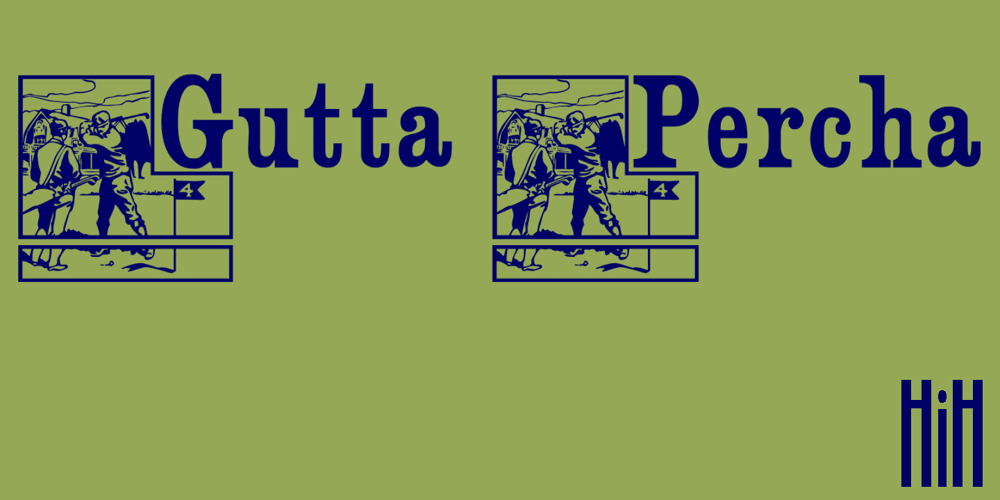
Gutta Percha Font Family was designed by published by HiH. Gutta Percha contains 1 styles and family package options. Gutta Percha is a font for golfers. It takers its name from a hard, resilient natural substance that comes from the sap of trees grown in southeast Asia and which was used for the hard core of golf balls well into the twentieth century, when it was gradually replaced with synthetic material. It therefore seemed an appropriate name for a font using the image of a golfer of the 1920s. The letters are from our font Besley Clarendon, reduced to 70%. That means that Gutta Percha set at 40 points will have the same size letters as Besley Clarendon set at 28 points. However, it should be noted that the two fonts have different baselines. If you use them together you will have to manually adjust the vertical alignment. Gutta Percha is obviously a very specialized font, both because of the subject matter and because the uppercase is designed for use as dropped caps. There may not be many uses for it, but when it is right, it will be really right. Whether you are publishing a book about the history of golf or a clubhouse bulletin, Gutta Percha will surely be noticed.